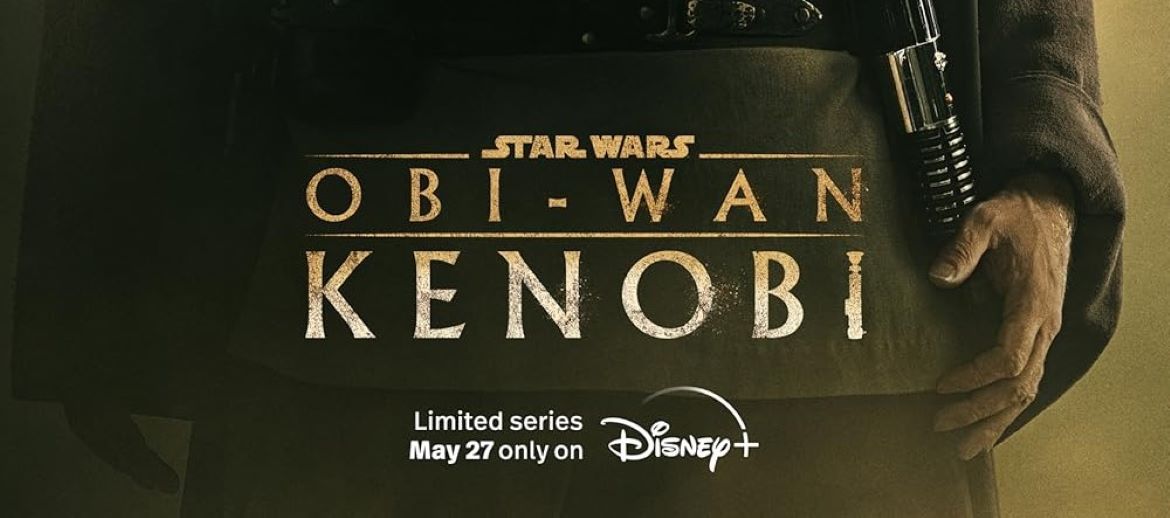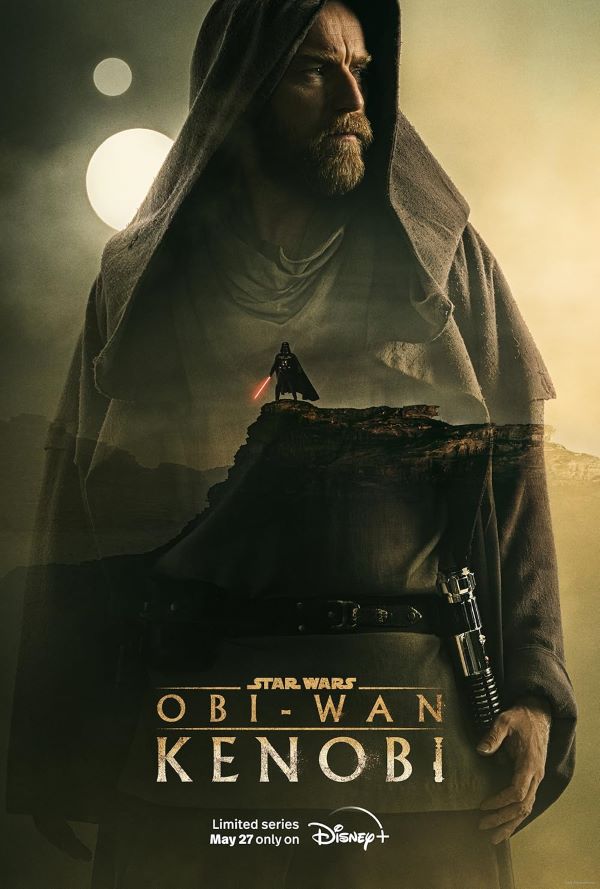
Obi-Wan Kenobi Font
What is The Font Of Obi-Wan Kenobi?
The Obi-Wan Kenobi Font used in the TV series title closely matches the typeface Albertus — a commercial glyphic serif font originally designed by Berthold Wolpe. Since Albertus requires licensing, there is a free alternative font available that closely emulates its strong, chiseled look, making it suitable for personal or creative design projects.
About Obi-Wan Kenobi
Obi-Wan Kenobi (2022) is a science-fiction miniseries produced by Lucasfilm and streamed on Disney +. Set ten years after the events of Star Wars: Revenge of the Sith, the series follows Jedi Master Obi-Wan Kenobi as he embarks on a mission to protect his past and ensure the future of the galaxy. The logo’s typography — its bold, all-caps letterforms with sharp serifs — captures the character’s legacy and the epic scale of the story.